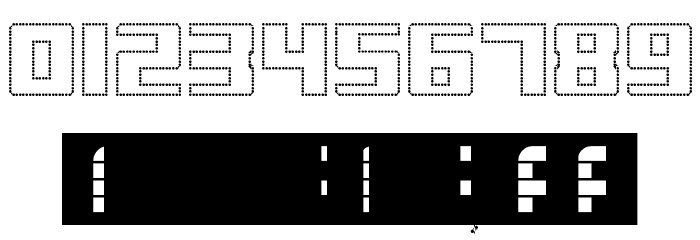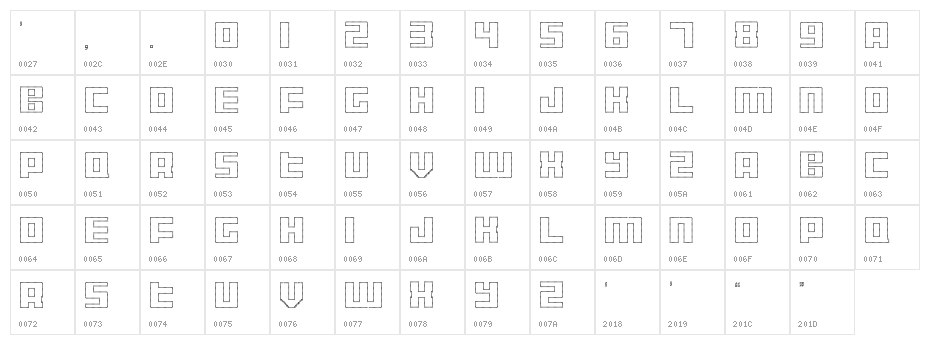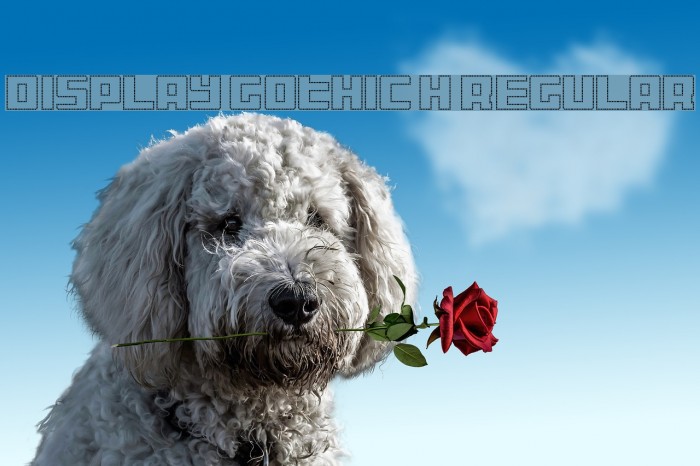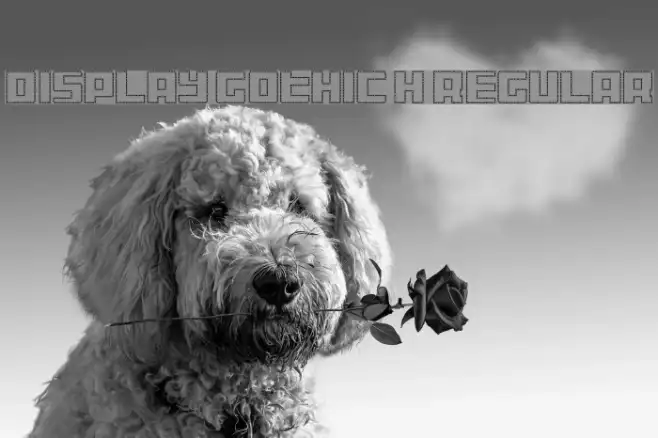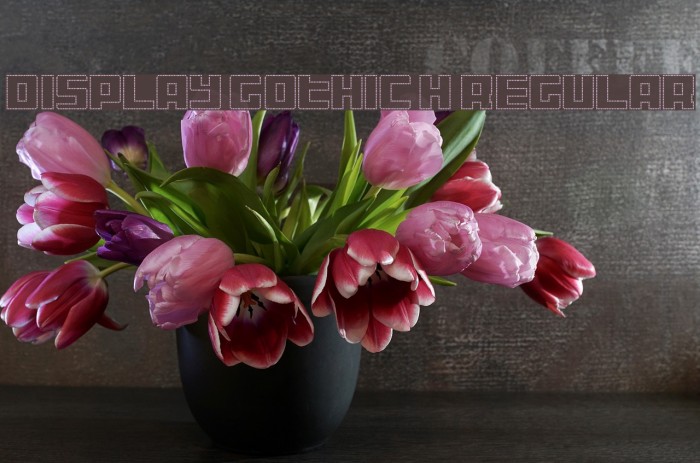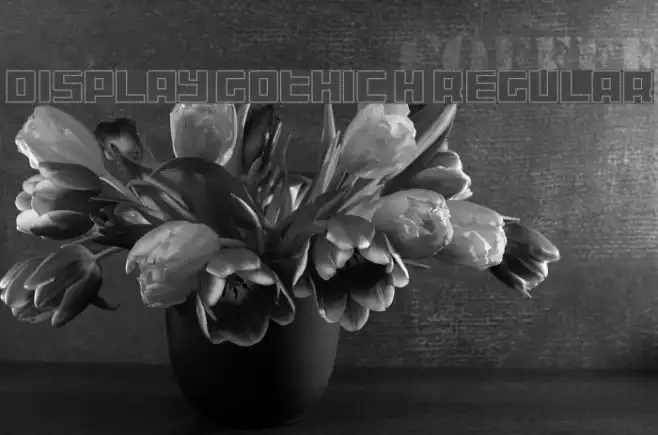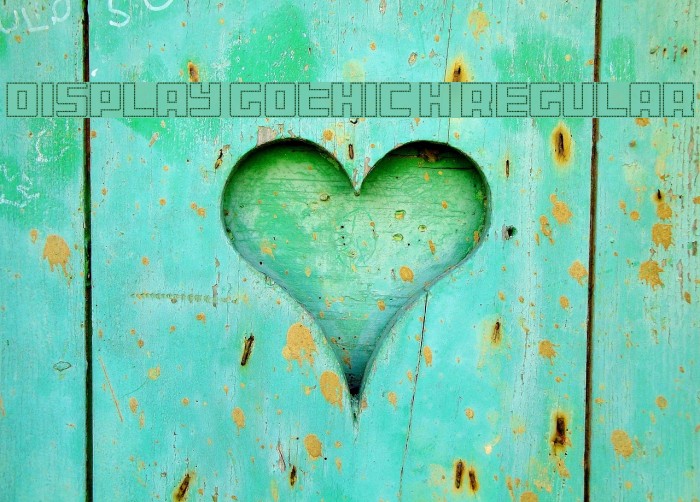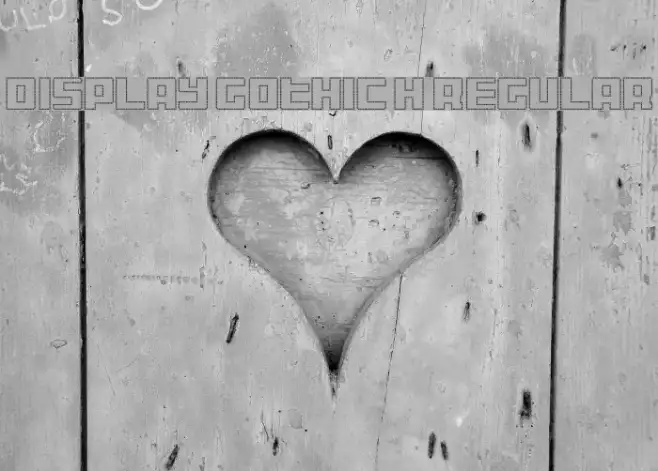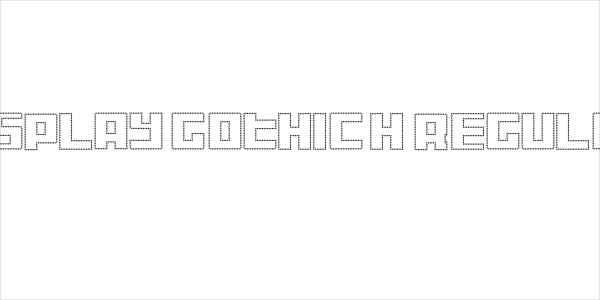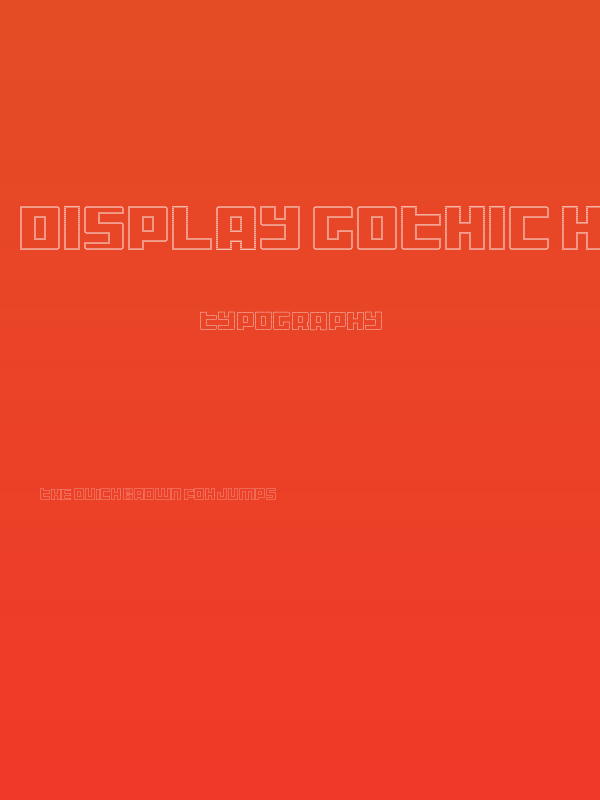
Display Gothic H Regular Font
Display Gothic H Regular Description
This font features a bold, geometric design with a dotted outline that gives it a digital, futuristic appearance. The characters are constructed with uniform, straight lines and sharp angles, creating a sense of precision and modernity. The uppercase and lowercase letters maintain a consistent height, while the numbers and special characters follow the same stylistic approach. The dotted outline adds a unique texture, making it stand out for creative and tech-oriented projects.
| Proposed Projects | This font is perfect for digital interfaces, tech branding, video game titles, and futuristic posters. |